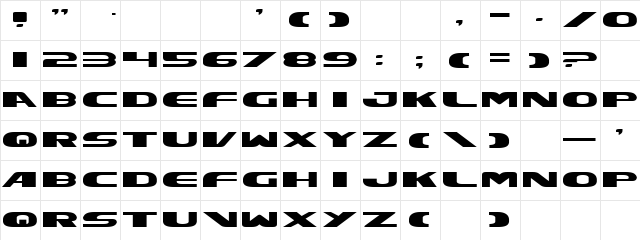
Excelsior Expanded Expanded
Excelsior Expanded is a composed and adaptable typeface that performs quietly and consistently across a wide range of design contexts.